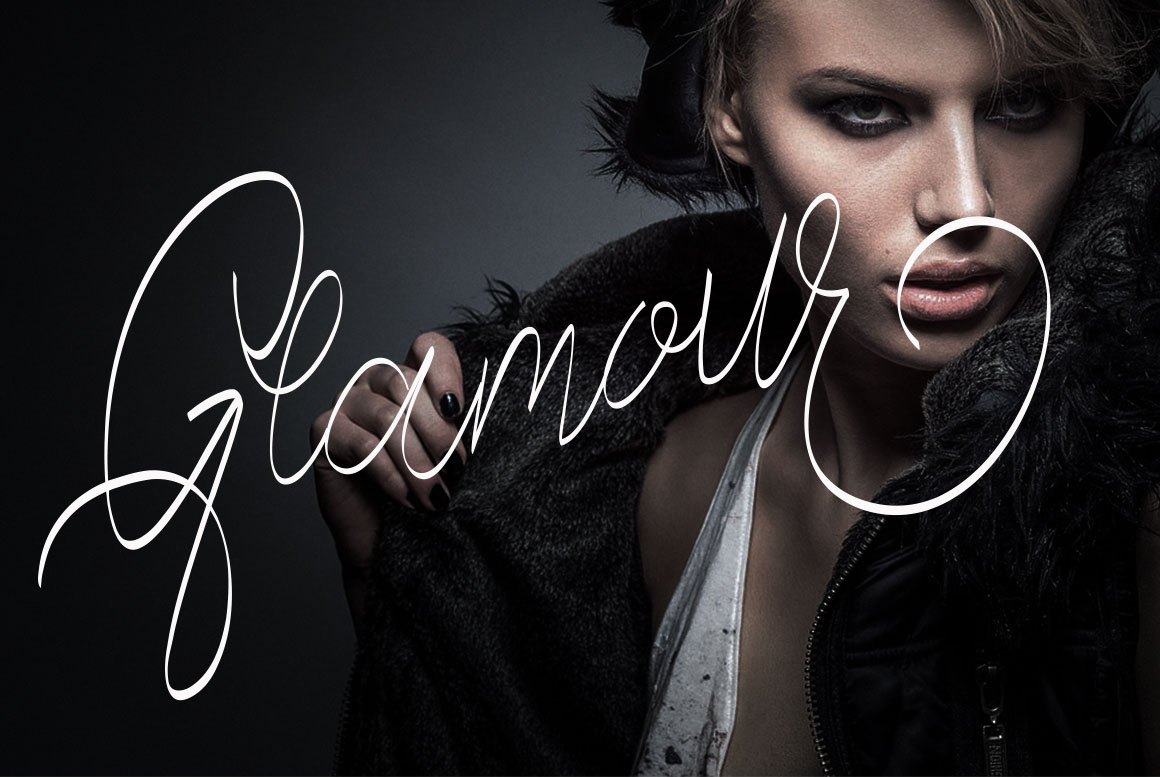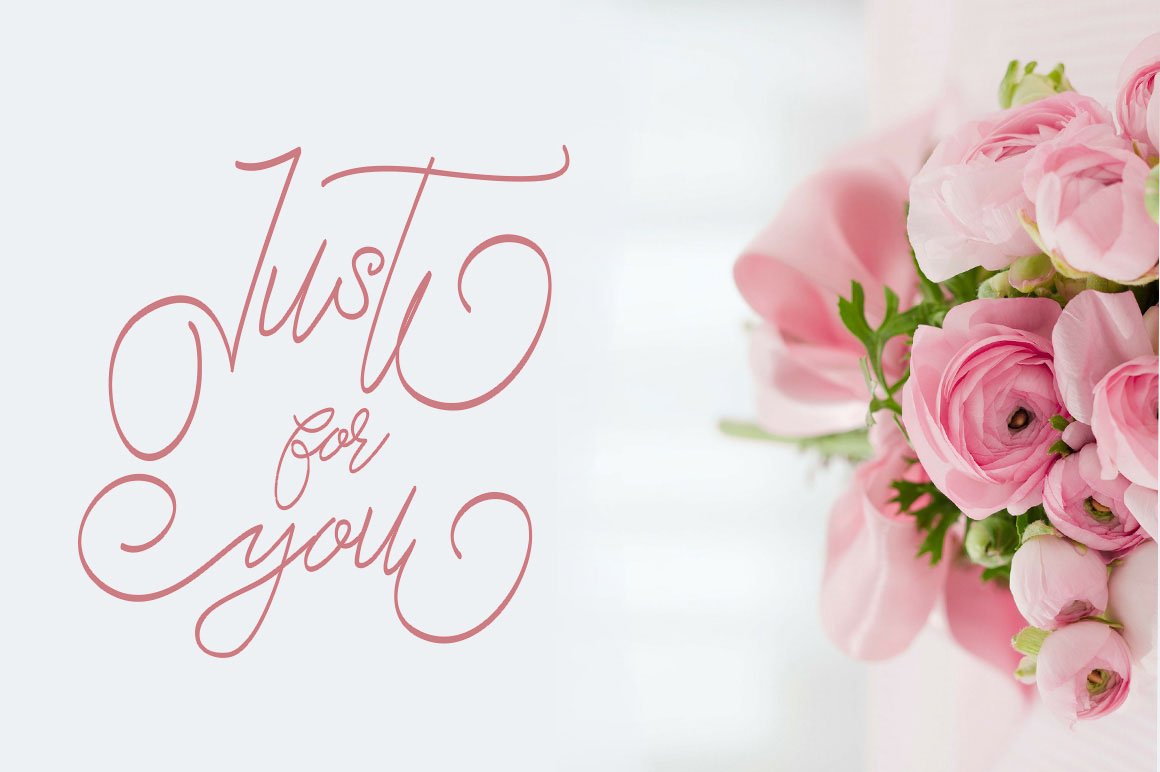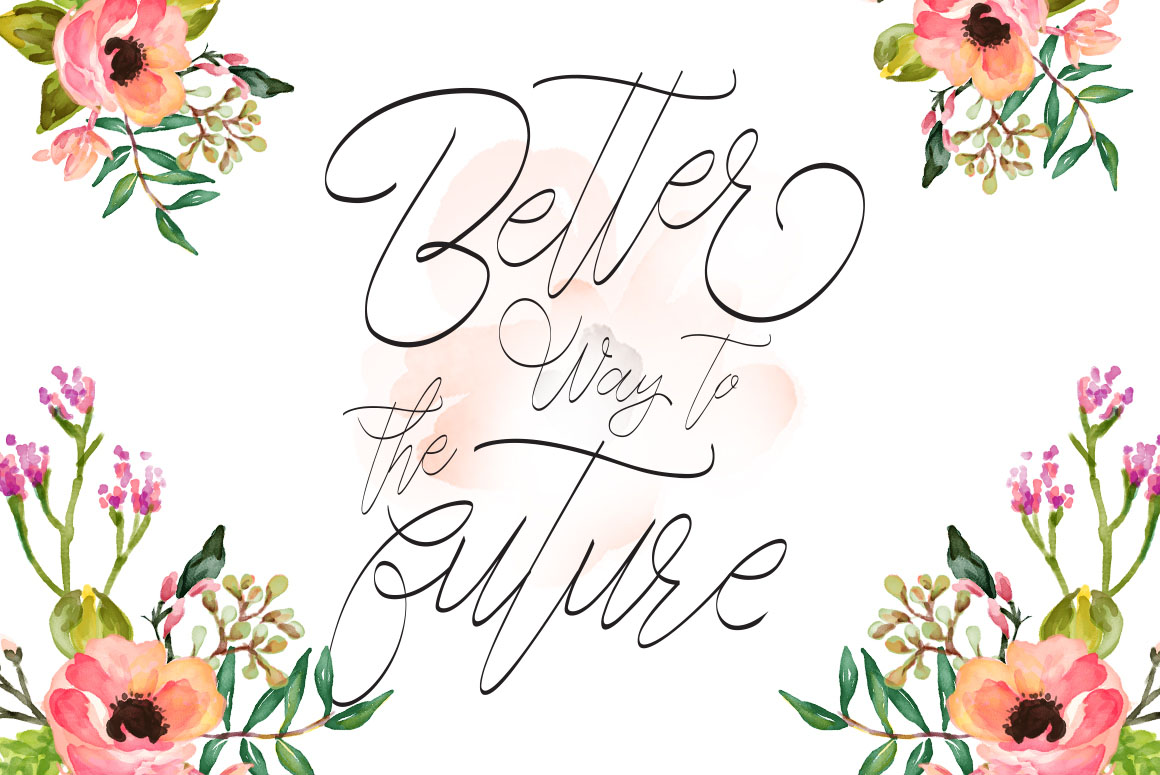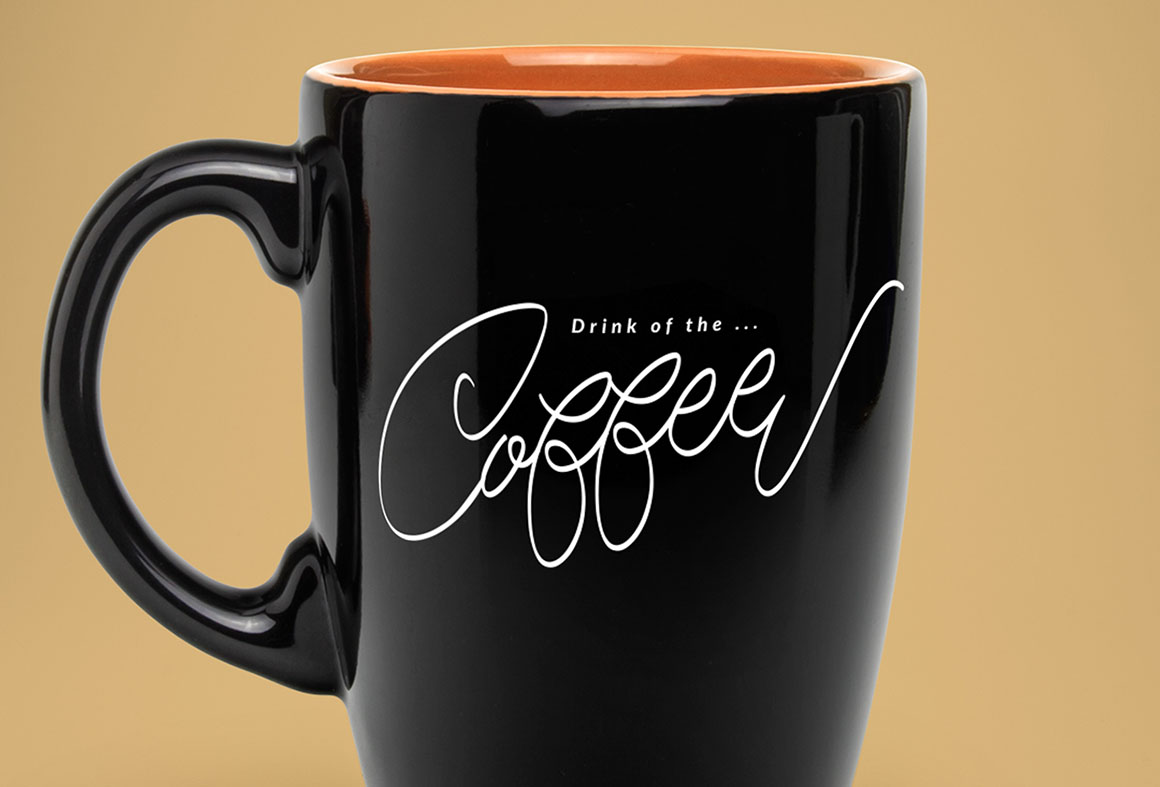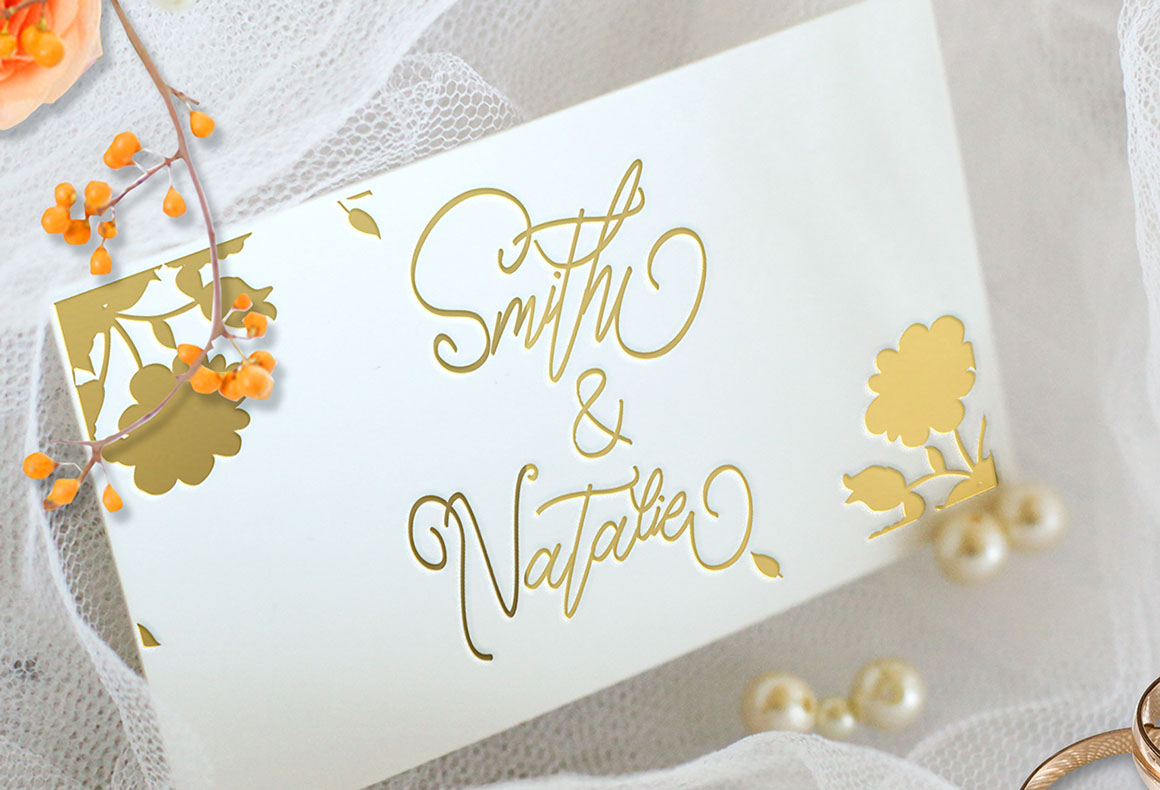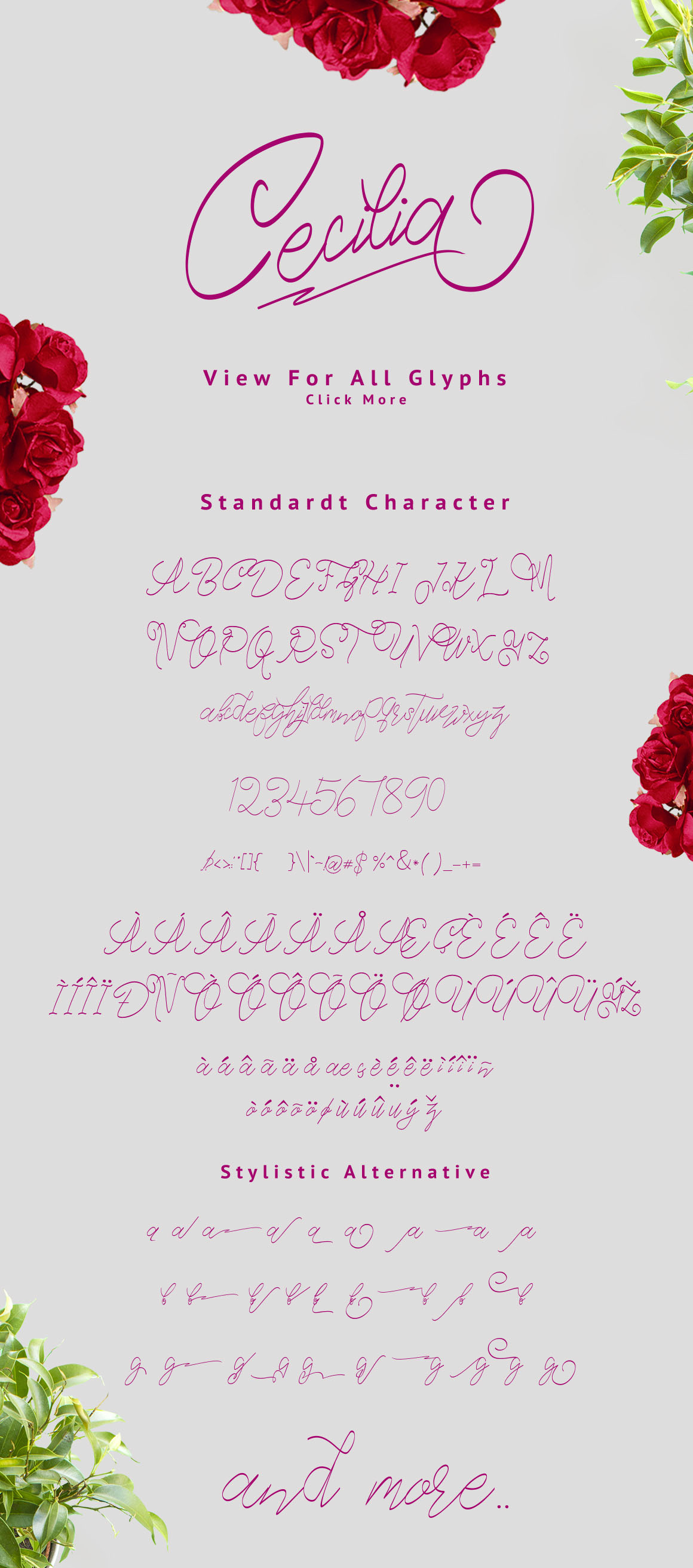
Cecilia – Free Script Font
This elegant script custom font is from Hendra Maulia (Dirtyline Studio). Great for your new projects. Download and enjoy 😉